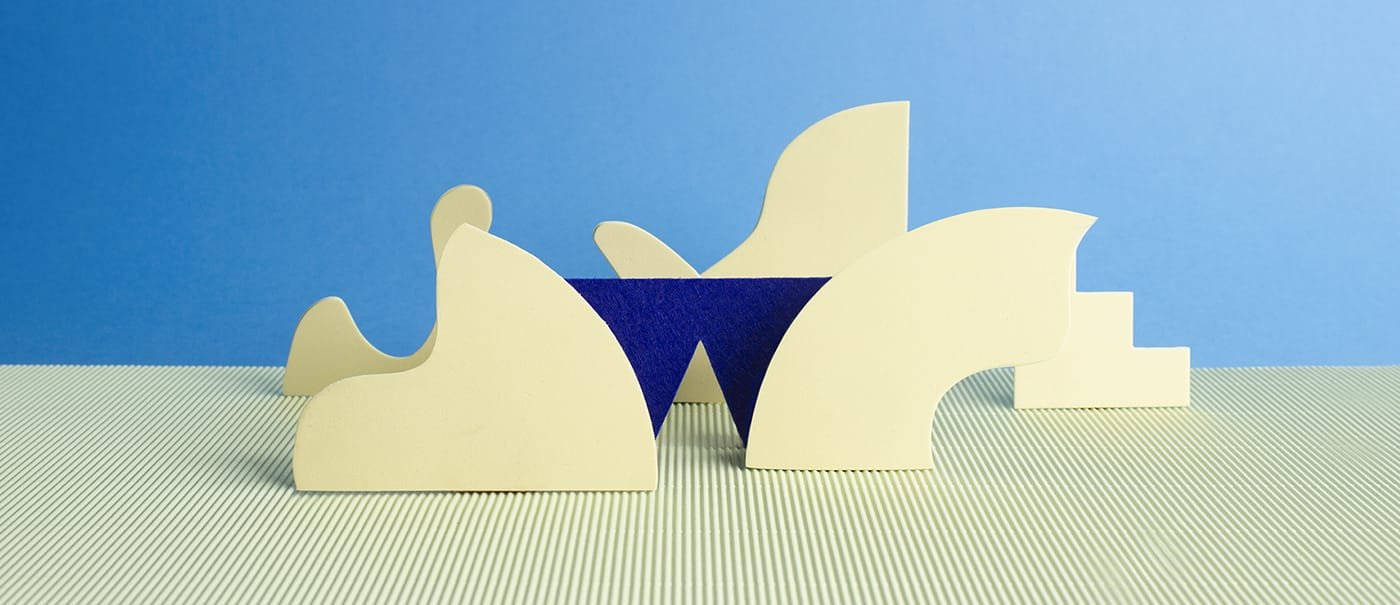
Landscape Typeface | Mindsparkle Mag
This colourful craft project entitled Landscape Typeface was created by Vasty in Barcelona. The project was originated for the 36 Days of Type. It shows th...